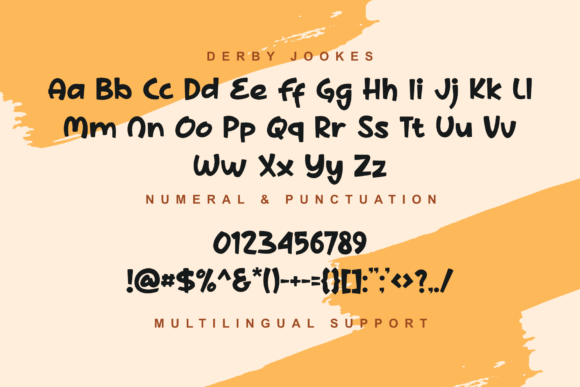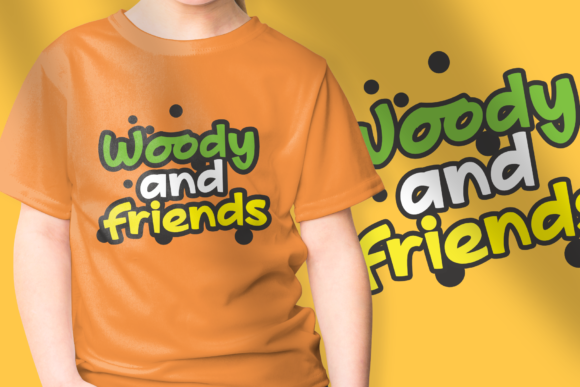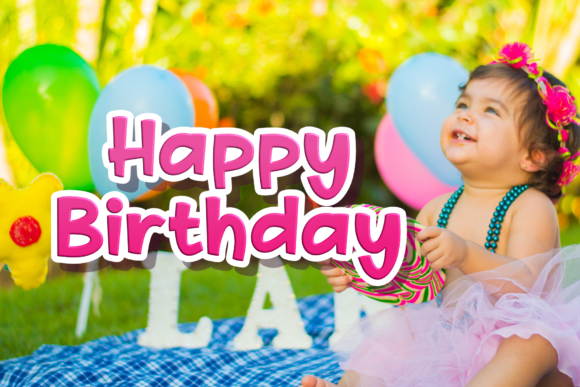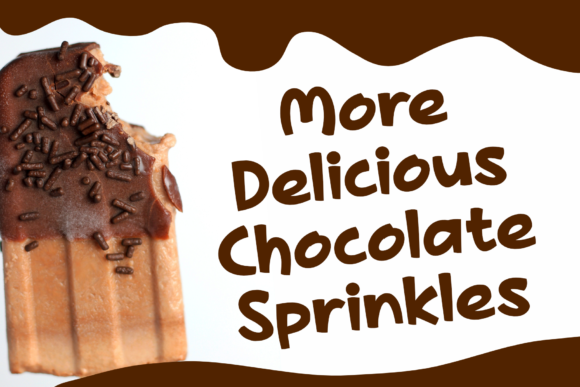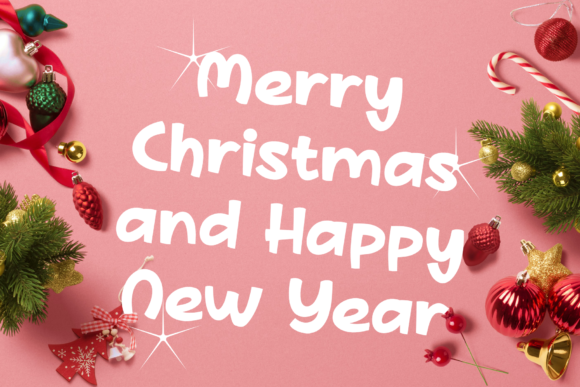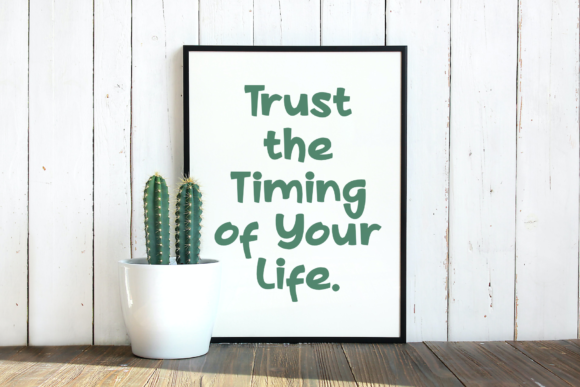
Introducing Derby Jookes Font: The Ultimate Choice for Fun and Playful Designs
Are you tired of using the same old fonts for your designs? Look no further! Derby Jookes Font is here to add a touch of playfulness and authenticity to your projects. This cute and fun display font is perfect for children activities, school projects, and any design that needs a dash of whimsy.
What Makes Derby Jookes Font So Special?
Derby Jookes Font embodies the spirit of playfulness and fun, making it an ideal choice for designers and crafters who want to create engaging and lively designs. Its chunky lettered style gives your designs a unique and eye-catching appeal that is sure to grab attention.
Whether you’re working on a children’s book, a school project, or a craft design, Derby Jookes Font is the perfect choice. Its friendly and approachable vibe makes it easy to connect with your audience and convey your message in a fun and playful way.
Here are some ideas for using Derby Jookes Font in your designs:
- Children’s book titles and headings
- School project posters and flyers
- Craft designs, such as party invitations and decorations
Benefits of Using Derby Jookes Font
Using Derby Jookes Font in your designs comes with several benefits:
- Unique and eye-catching designs: Derby Jookes Font’s chunky lettered style gives your designs a unique and eye-catching appeal that sets them apart from the rest.
- Playful and engaging: The font’s playful and fun vibe makes your designs more engaging and interactive, perfect for children’s activities and school projects.
- Easy to read: Despite its chunky style, Derby Jookes Font is easy to read, making it perfect for designs that require a clear and concise message.
- Versatile: Derby Jookes Font can be used in a variety of designs, from children’s books to social media graphics.
Tips for Getting the Most Out of Derby Jookes Font
Here are some tips for getting the most out of Derby Jookes Font:
- Experiment with colors: Derby Jookes Font looks great in bright and bold colors, so don’t be afraid to experiment and find the perfect color scheme for your design.
- Mix and match with other fonts: Derby Jookes Font pairs well with other fonts, so try mixing and matching it with other fonts to create a unique and interesting design.
- Use it sparingly: While Derby Jookes Font is perfect for headings and titles, it can be overwhelming if used too much. Use it sparingly to create a clear and concise design.
Derby Jookes Font is a fun and playful display font that is perfect for designers and crafters who want to add a touch of whimsy to their designs. Its chunky lettered style and friendly vibe make it an ideal choice for children’s activities, school projects, and any design that needs a dash of playfulness.